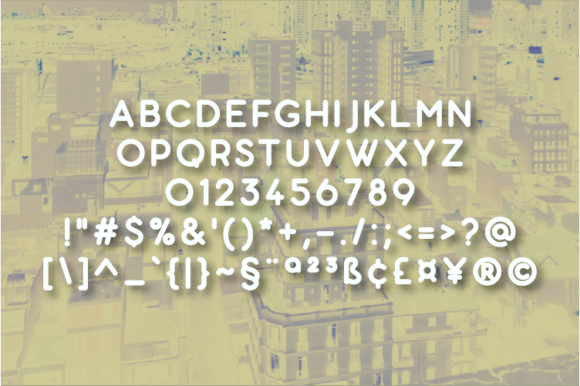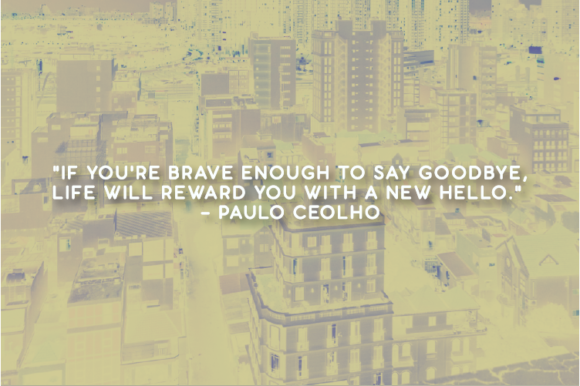
Introduction to Khenzie Font
Khenzie is a simple and versatile sans serif font, created to complement every project you’re working on.
Use it to make beautiful headings, gorgeous invitations, stunning logos, and so much more .
Key Features of Khenzie Font
Why Choose Khenzie Font?
Khenzie Font offers exceptional quality and versatility, making it a valuable addition to your design toolkit. Whether you’re creating for personal projects or commercial use, Khenzie Font delivers professional results.